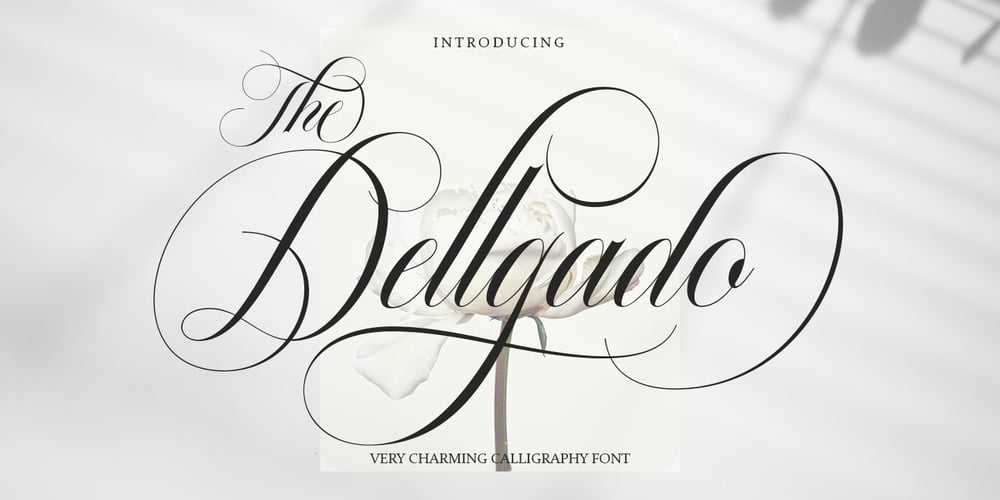
The Dellgado Font Family was designed by Haikal Juanda and published by Pista Mova. The Dellgado contains 2 styles and family package options. The Dellgado is the font of choice for writing things beyond words. This typeface is designed with great detail to convey stylish elegance. So, it can be said, the character of the transformation is very beautiful, a kind of classic ornamental copper script.The Dellgado provides alternative variants of most fonts, binders and many calligraphy tips, ideal for elegant labels, high-end packaging, stationery and compositions for certain brands, beautiful titles, paragraphs, letters and short text, intended for read only with the eyes or meant to be whispered into someone’s ear.The Dellgado includes various language support. It features OpenType with alternative styles and elegant binders. The OpenType features don’t work automatically, but you can access them manually and for best results your creativity will be required in combining variations of these Glyphs. And also a touch of ornament makes this font look elegant.To enable the OpenType Stylistic alternative, you need a program that supports OpenType features such as Adobe Illustrator CS, Adobe Indesign & CorelDraw X6-X7, Microsoft Word 2010 or a later version. (Windows), Font Book (Mac) or a software program such as PopChar (for Windows and Mac).How to access all alternative characters using Adobe Illustrator:https://www.youtube.com/watch?v=XzwjMkbB-wQHow to use the font style set in Microsoft Word 2010 or later versions:https://www.youtube.com/watch?v=NVJlZQ3EZU0There are additional ways to access the alternative/swash, using the Character Map (Windows), Nexus Font (Windows) Font Book (Mac) or a software program such as PopChar (for Windows and Mac).How to access all alternative characters, using the Windows Character Map with Photoshop:https://www.youtube.com/watch?v=Go9vacoYmBwIf you need help or advice, please contact me by emailRegardsMova Pista